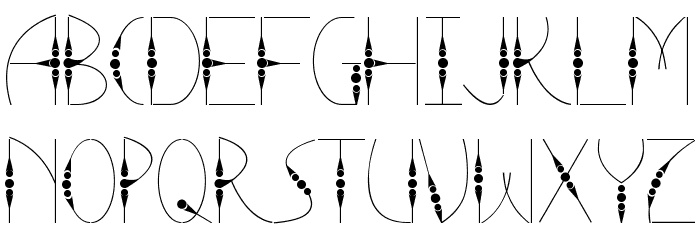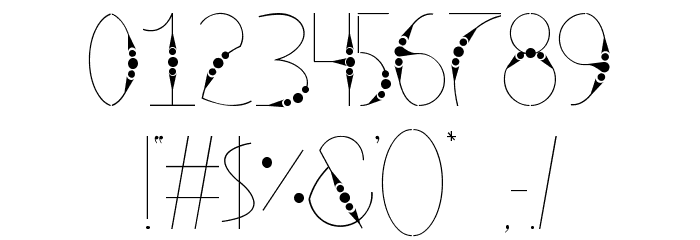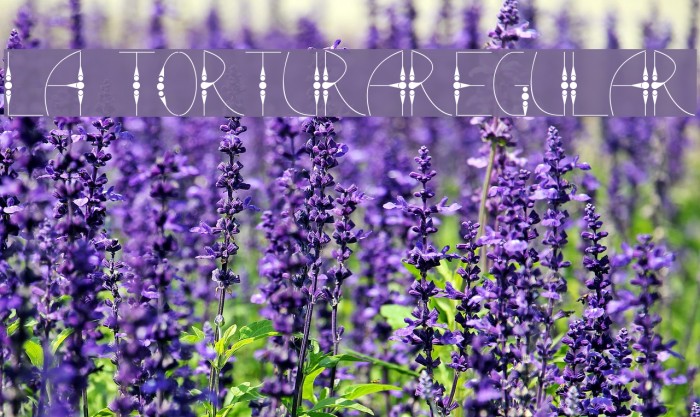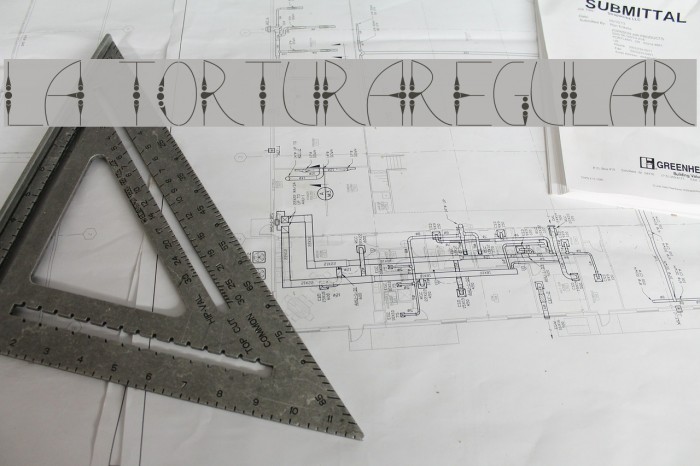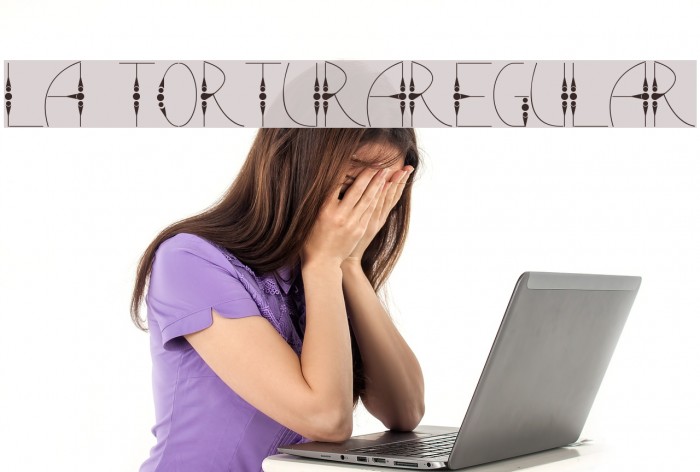
La TorturaRegular Font
This font features a unique and artistic design, characterized by its thin, elongated strokes and decorative dots that embellish each character. The letters have a modern and abstract appearance, with a playful yet sophisticated style. The uppercase and lowercase letters maintain a consistent design theme, while the numbers and special characters follow suit with similar embellishments. This font's distinctiveness makes it stand out, offering a creative flair that is both eye-catching and elegant.
An artistic font with thin strokes and decorative dots, offering a modern and abstract style.
- Proposed Projects: Ideal for creative projects such as art posters, album covers, fashion branding, and unique invitations.
- Use Case: Logos, Headlines, Artistic projects